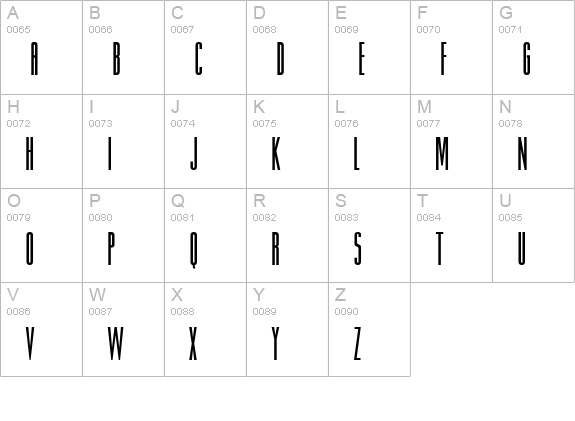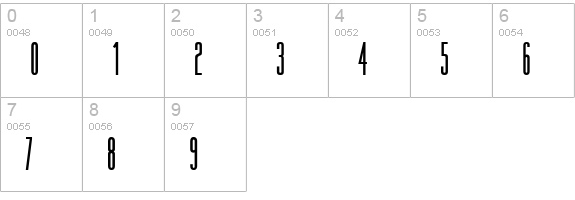
Suva SSi Bold Font Details
Suva SSi Bold is a strong, high-contrast variant in the Suva typeface family \xE2\x80\x94 well suited to headlines, attention-grabbing titles, and strong calls-to-action.
Suva SSi Bold is a modern and stylish typeface that exudes elegance and sophistication. Its bold weight commands attention and makes a strong visual impact, perfect for headlines, titles, and branding projects. The crisp, clean lines of Suva SSi Bold give it a contemporary feel, while its subtle curves add a touch of flair. What sets Suva SSi Bold apart is that it is not only visually stunning, but also freely available for download at FontsMarket.com. This means you can use this high-quality font in your personal or commercial projects without any cost, making it a valuable addition to your design toolkit. Whether you're creating posters, logos, invitations, or any other design project that requires a bold and eye-catching font, Suva SSi Bold is sure to elevate your work with its modern aesthetic and versatile appeal. Download it today and experience the impact of this stunning typeface for yourself.